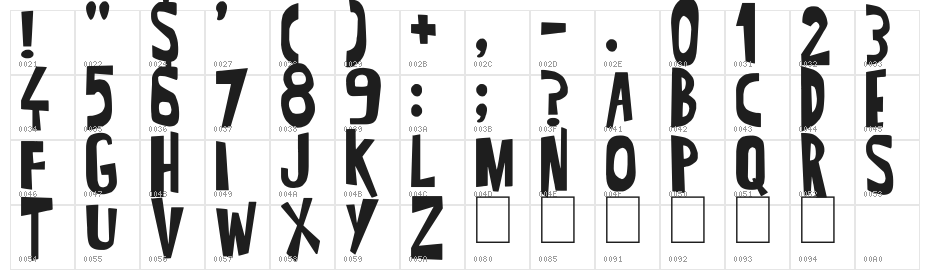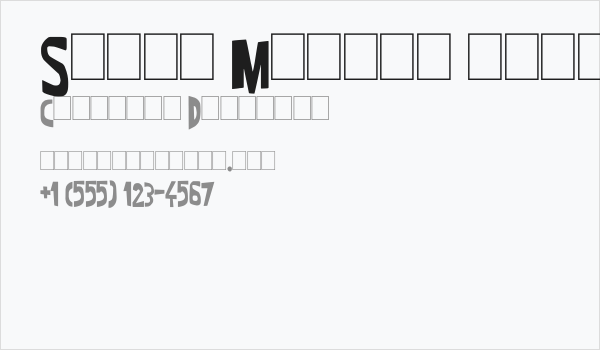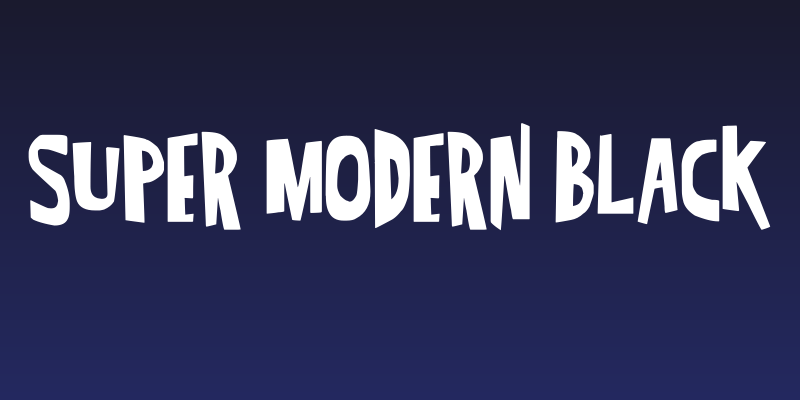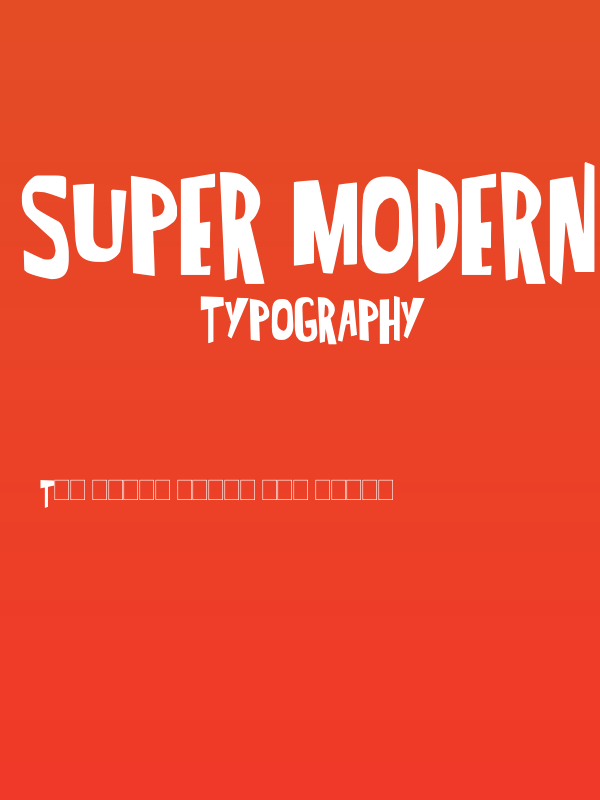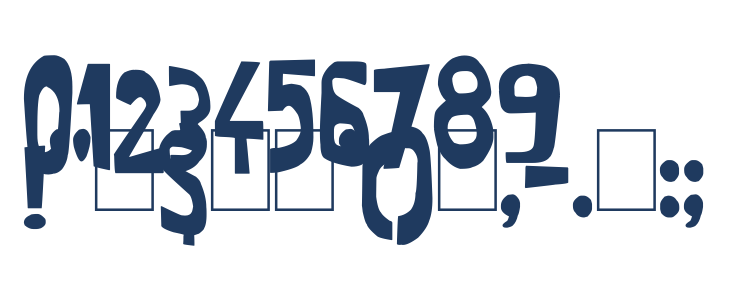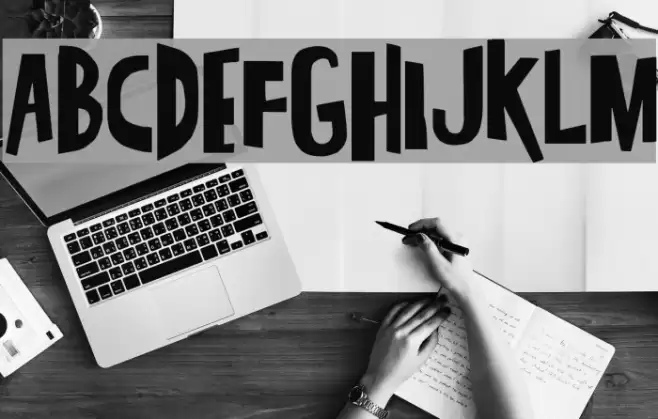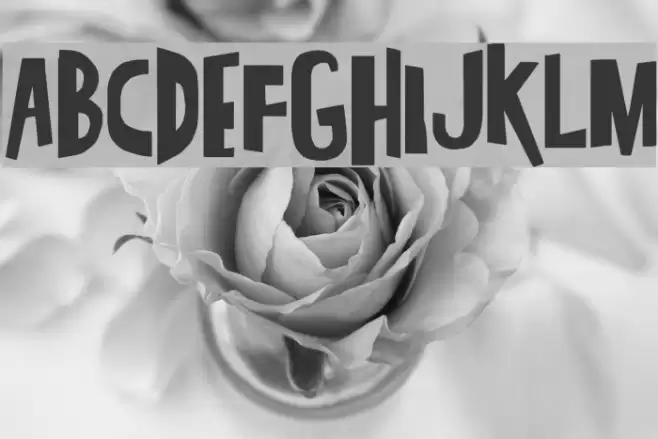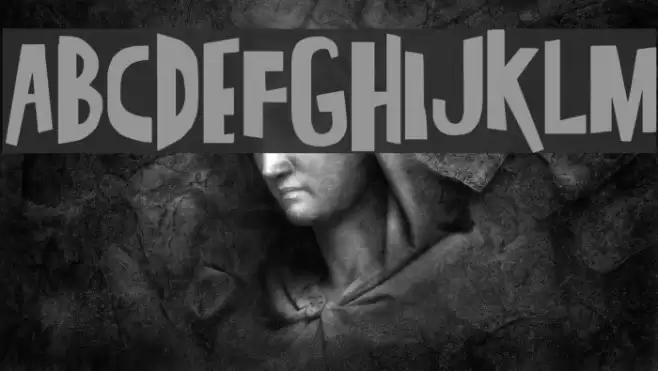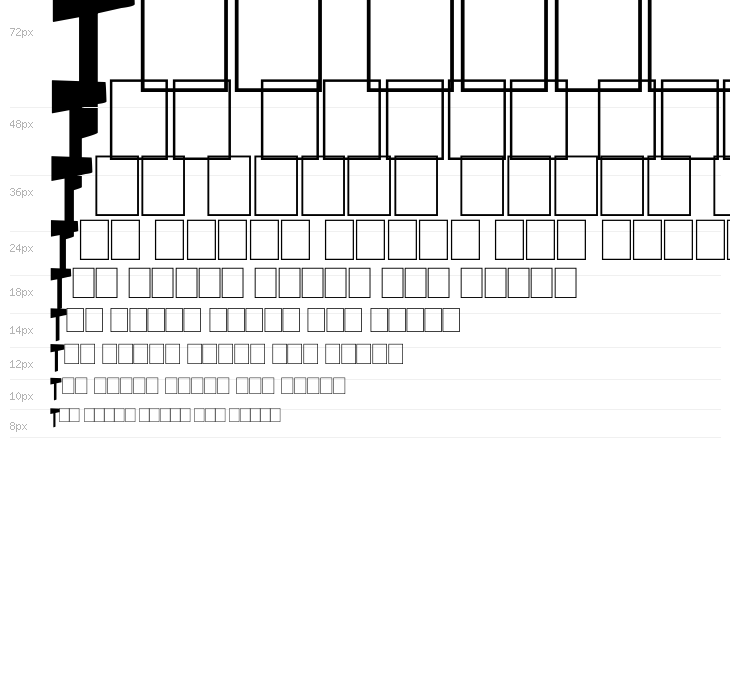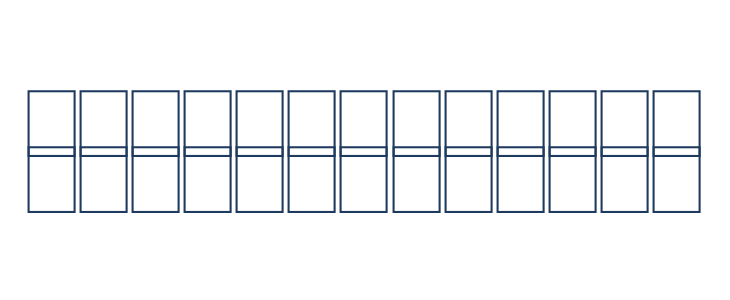
Super Modern black Font
This font features a bold and dynamic style with thick, heavy strokes that create a strong visual impact. The characters are slightly condensed, giving them a compact appearance while maintaining legibility. The uppercase letters are particularly striking, with sharp angles and a modern aesthetic. The numbers and special characters follow the same bold design, ensuring consistency across all elements. This font is ideal for projects that require a powerful and contemporary look.
| Proposed Projects | Ideal for headlines, posters, branding, and advertising campaigns that need a bold statement. |